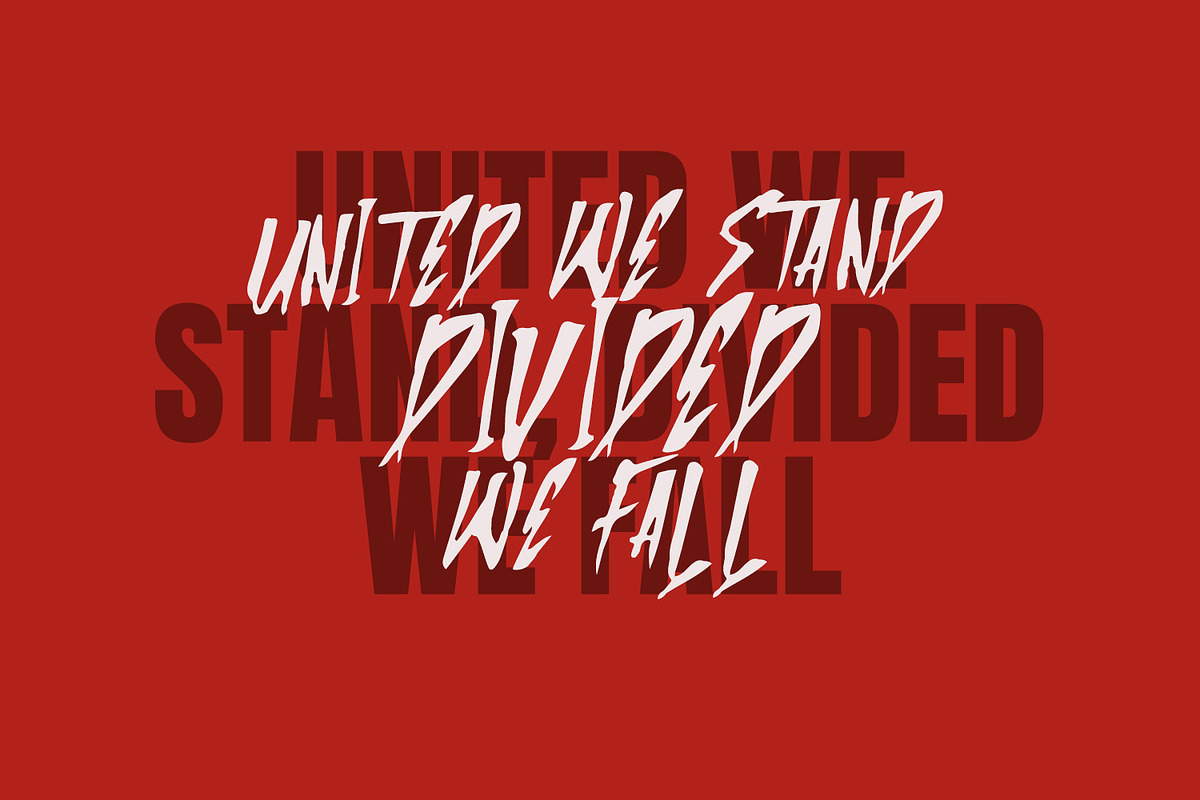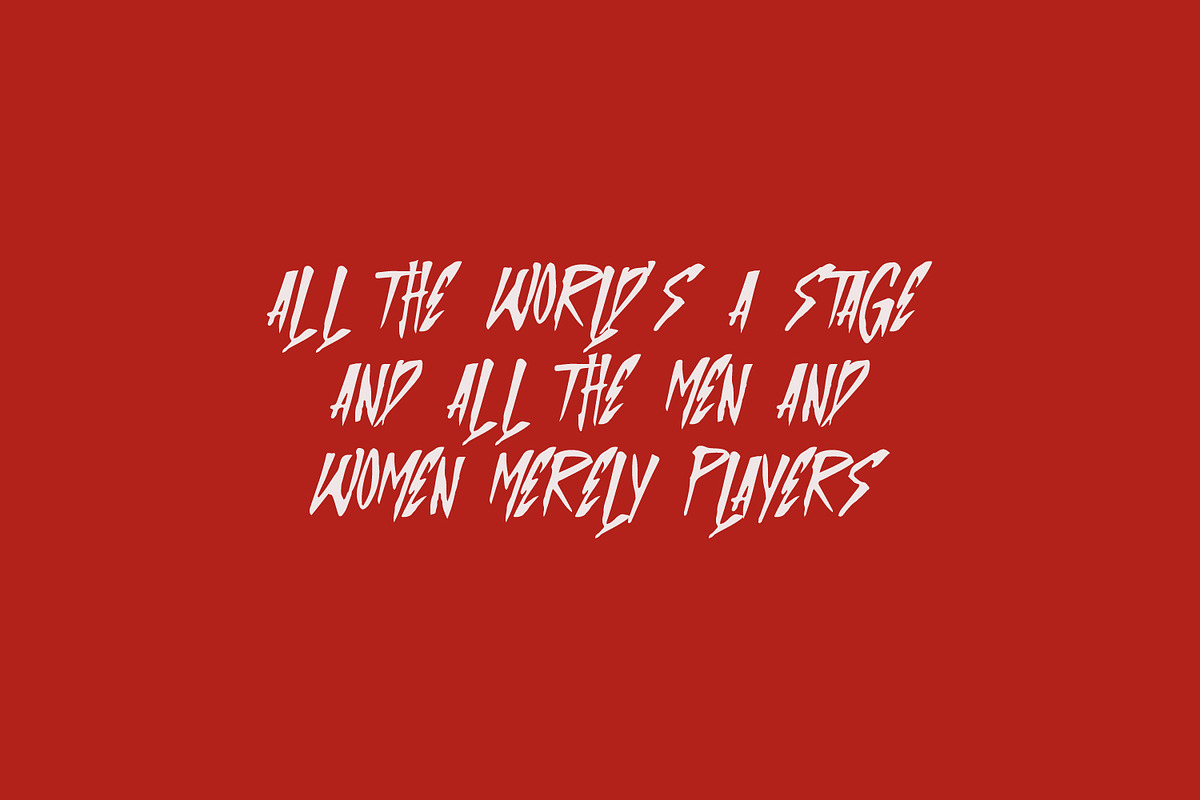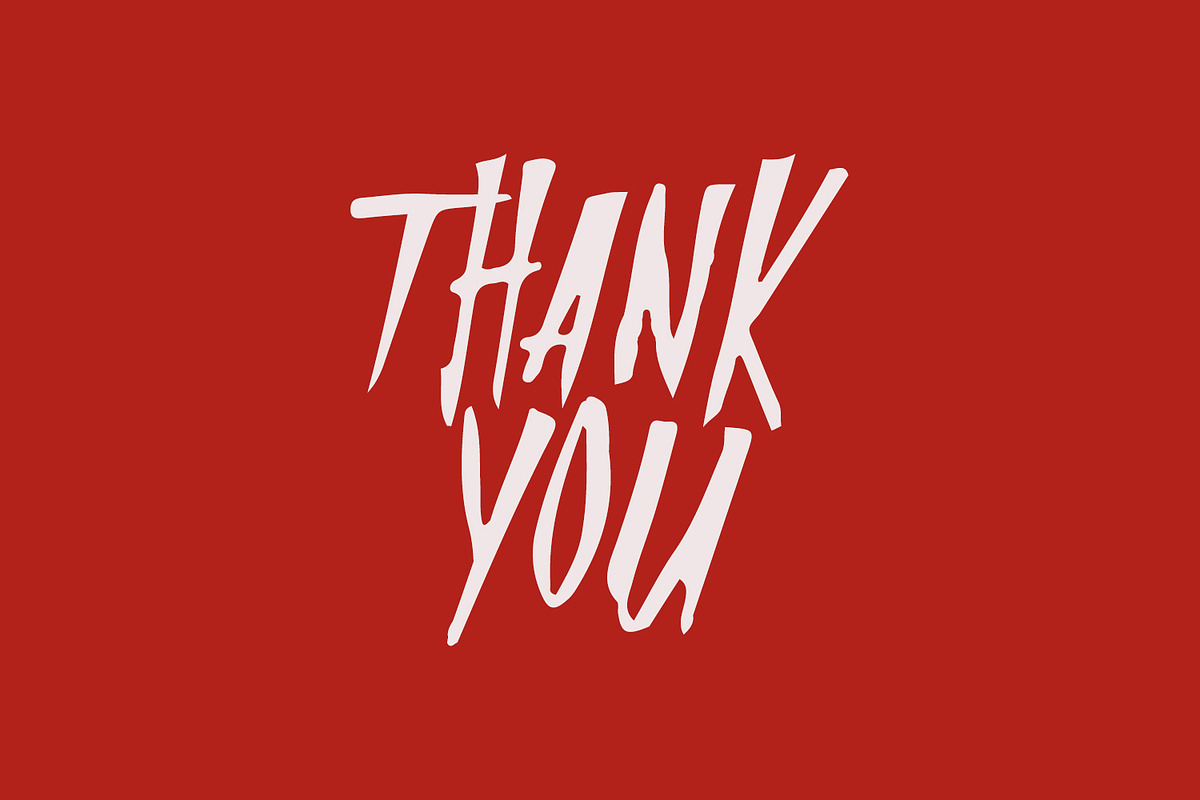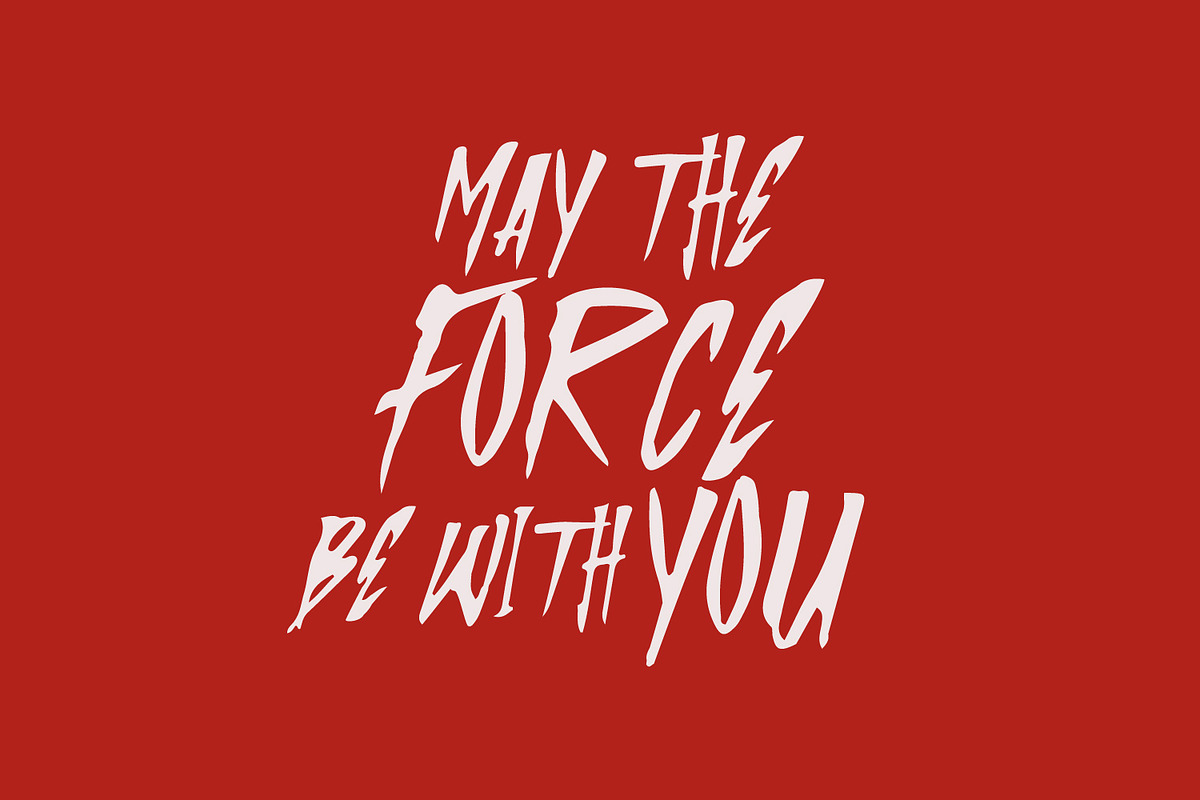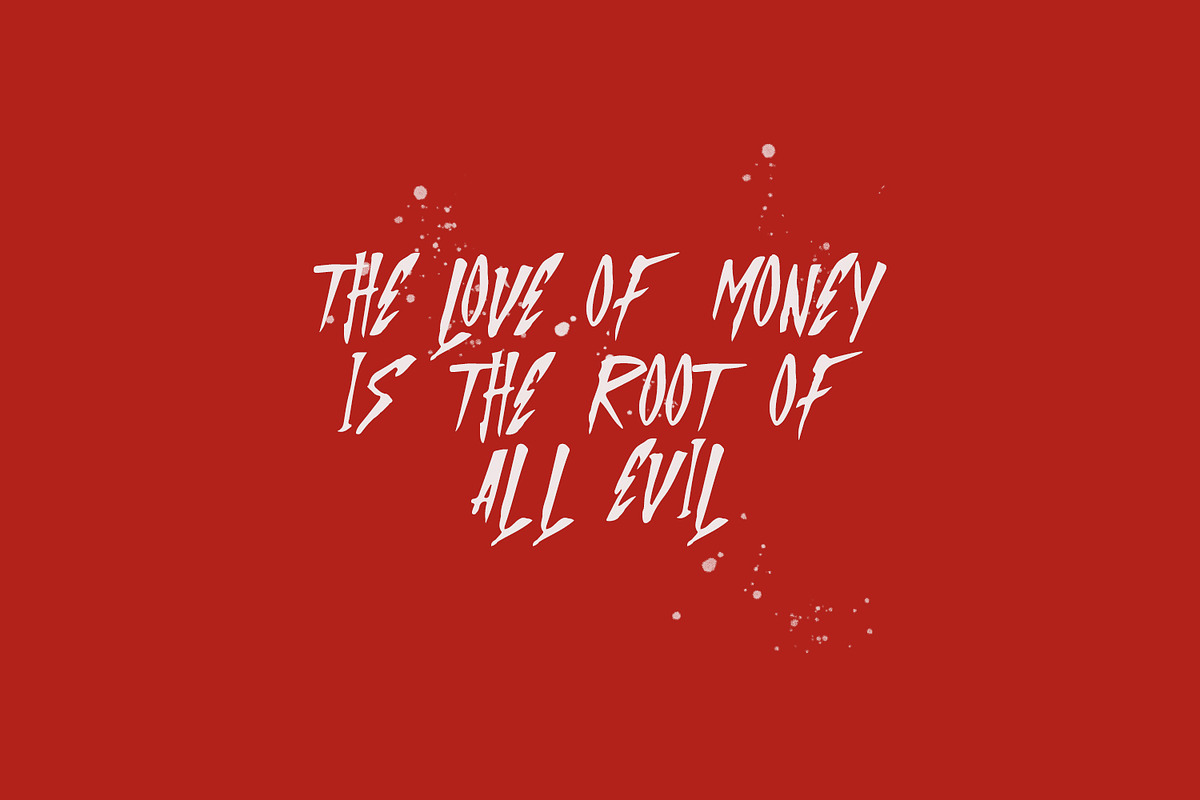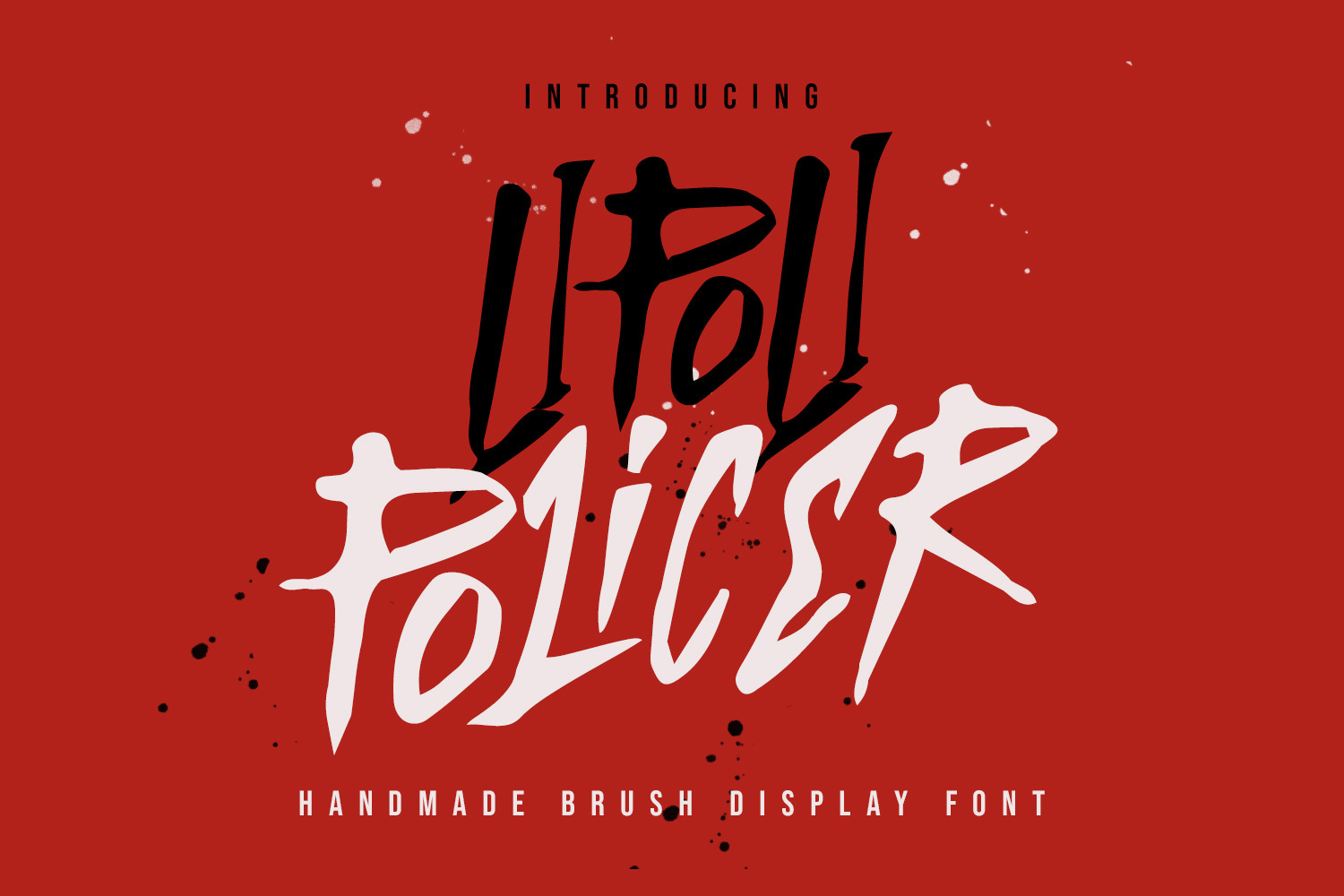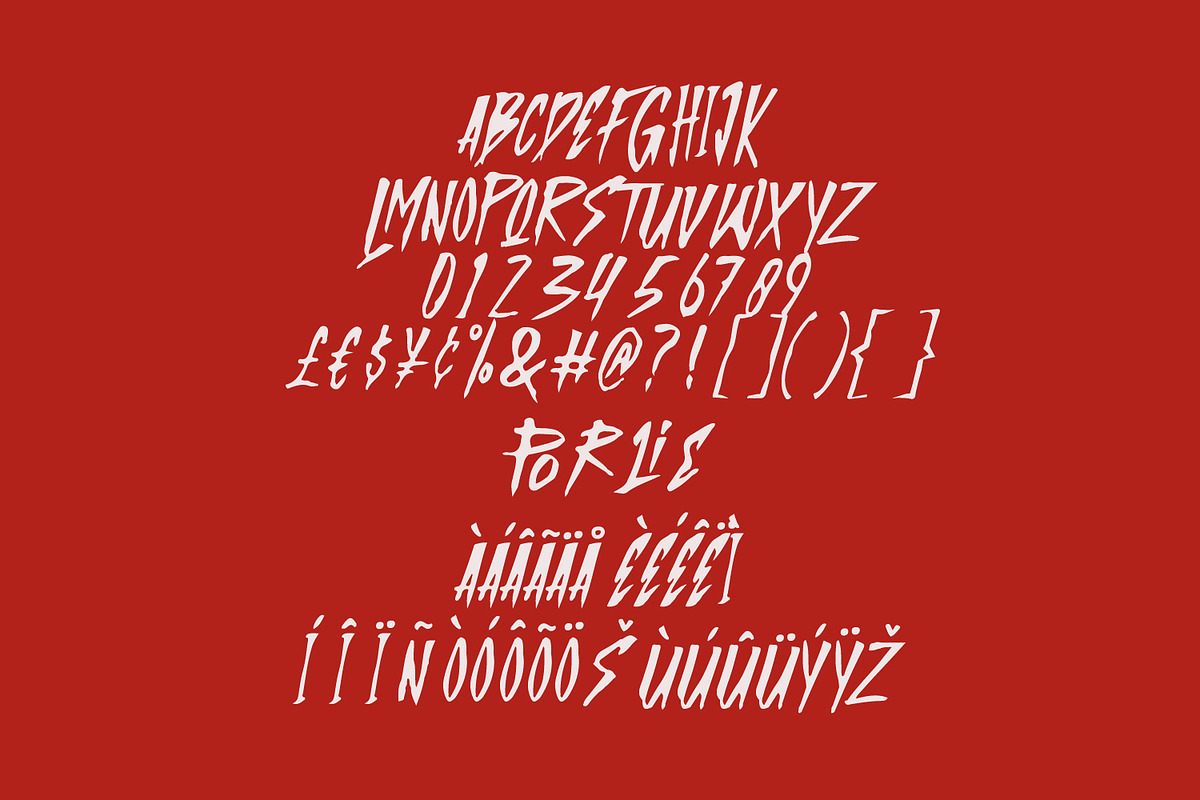
Lipoli Policer Handmade Brush Font
Lipoli Policer is a handmade brush display handwritten font. With bold stroke, fun character with a bit of ligatures and alternates. To give you an extra creative work. Lipoli Policer font support multilingual more than 100+ language. This font is good for logo design, Social media, Movie Titles, Books Titles, a short text even a long text letter and good for your secondary text font with sans or serif. Make a stunning work with Lipoli Policer font.